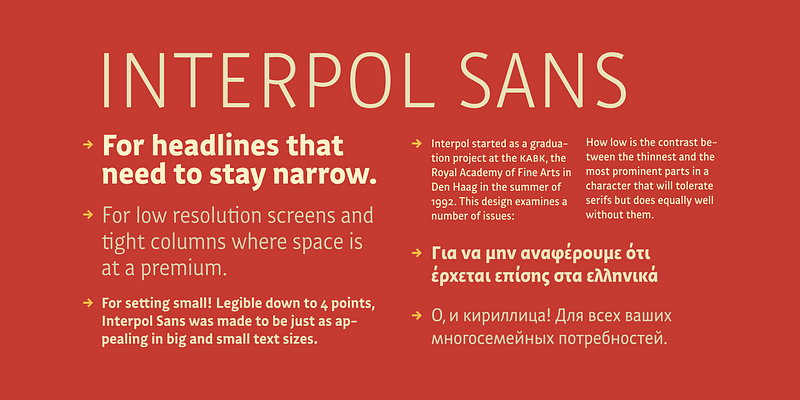
Interpol Sans is the sans serif branch of a family of robust, low contrast typefaces designed for legibility in low resolution situations. It performs particularly well on media like television and computer screens, or in projections and on lightboxes. The Interpol family of typefaces also runs a narrow. While it is not quite condensed, Interpol Sans consumes less space than classic proportions prescribe. In Dutch this is called zuinig: thrifty. It means that the Interpol will fit just a few more words in one line of text than a run-of-the-mill sans serif. This is interesting for narrow columns and headlines, or for publications which need to accommodate a lot of text on a page without looking crammed.